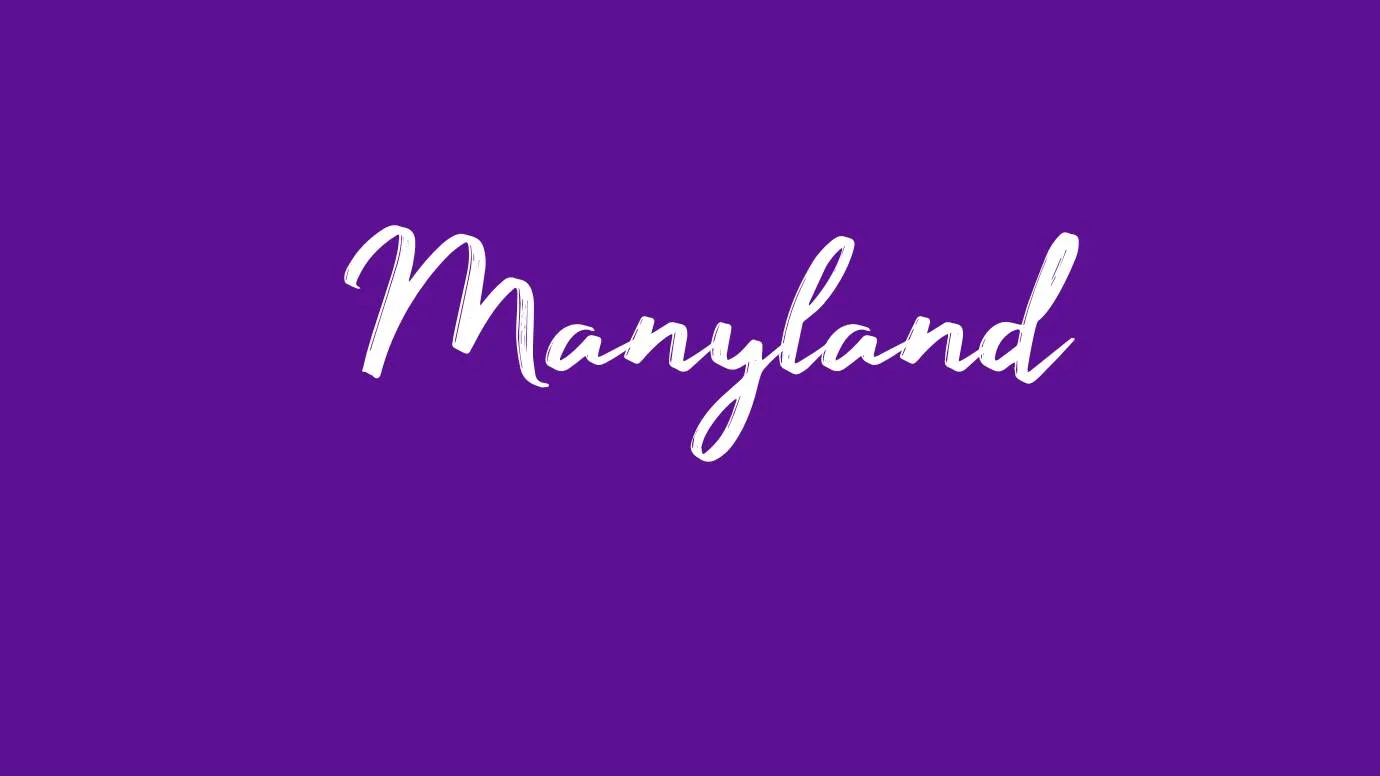
Manyland Font Family is a very attractive and nice handwritten font with a stylish style. It was designed by Craft Supply Co. You can make all personal and commercial projects by using this font.
Manyland Font
NameManyLand Font
DesignerCraft SupplyCo
TypeHandwritten